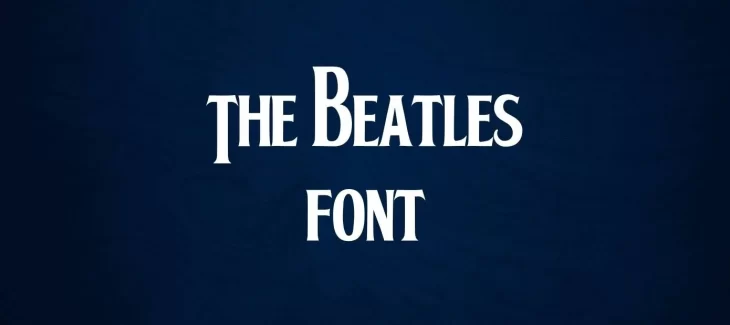
The Beatles Font Free Download
The Beatles Font is a typeface based on the lettering used on the album sleeves for the Beatles’ albums Revolver and Sgt. Pepper’s Lonely Hearts Club Band. The typeface was created by Alan Kitching in 1965. This Font is a sans serif typeface with sharp, … Read More